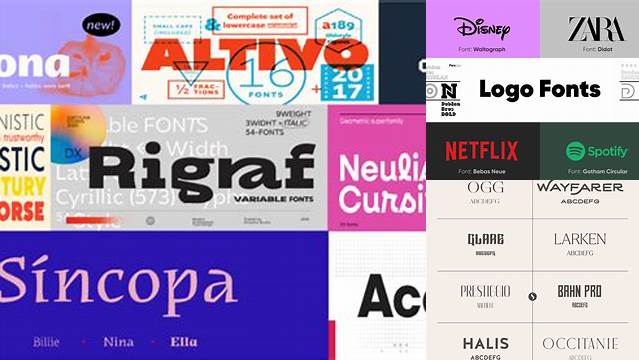
Top Logo Fonts 2025: Create A Lasting Brand!
Choosing the right font for your logo is crucial, guys. It's like picking the perfect outfit for a first date β you want to make a great impression! In 2025, the landscape of logo design is evolving, and staying ahead of the curve means understanding the latest font trends and how they can represent your brand effectively. So, letβs dive into the best fonts for logo design in 2025 and how to use them to create a lasting brand identity.
1. Serif Fonts for Logos: Timeless Elegance
Serif fonts, with their classic serifs (those little strokes at the ends of letters), have a reputation for conveying sophistication and reliability. When you think of established brands with a sense of history, you often picture serif fonts. For your logo, a well-chosen serif can project a sense of timeless elegance. Think about brands like Times New Roman, which have stood the test of time. In 2025, serif fonts aren't just about tradition; they're being reimagined with modern twists. This means you can find serifs that feel both classic and contemporary, providing the best of both worlds. When using serif fonts, pay attention to the spacing between letters (kerning) and lines (leading) to ensure readability. A cluttered or poorly spaced serif can lose its elegance and look outdated. The weight of the font also matters β a bolder serif can feel authoritative, while a lighter weight can appear more delicate. Experiment with different sizes and styles to see what works best for your logo. Ultimately, choosing a serif font is about more than just aesthetics; it's about telling a story of heritage and quality. Your brand can benefit greatly from the inherent trustworthiness associated with these fonts, making them a fantastic choice for conveying stability and sophistication in 2025. Consider the specific message you want to send, and let your chosen serif font be the silent yet powerful ambassador of your brand's values.
2. Sans-Serif Fonts: Modern & Minimalist
Sans-serif fonts, characterized by their clean lines and lack of serifs, have become synonymous with modern and minimalist design. They're the go-to choice for brands that want to project a sense of innovation, simplicity, and clarity. Think about tech companies or contemporary fashion brands β you'll often see them using sans-serif fonts in their logos. The versatility of sans-serif fonts makes them incredibly popular in 2025. They work well in both digital and print formats, making them a practical choice for logos that need to look good across various platforms. When you choose a sans-serif font, you're opting for readability and a sleek, uncluttered aesthetic. But don't think that minimalist means boring! There's a vast range of sans-serif styles, from geometric to humanist, each with its own unique personality. Geometric sans-serifs, like Futura, have a structured and almost architectural feel, while humanist sans-serifs, like Helvetica, are known for their warmth and approachability. The key is to find a sans-serif font that aligns with your brand's personality and values. Consider the overall tone you want to convey β is it professional, friendly, or edgy? The right sans-serif font can communicate all of these qualities. Make sure to consider how the font will look at different sizes. Some sans-serif fonts can become difficult to read when they are very small, so test your logo in various contexts to ensure it remains legible. By carefully selecting a sans-serif font, you can create a logo that is both modern and timeless, projecting a strong and confident image for your brand in 2025.
3. Script Fonts: Personality & Flair
Script fonts, which mimic the fluidity of handwriting, are perfect for brands looking to add a touch of personality and flair to their logo. Think of luxury brands, artisanal products, or anything that wants to convey a sense of craftsmanship and attention to detail. In 2025, script fonts continue to be a popular choice for logos that need a personal touch, but it's crucial to use them strategically. Script fonts can range from elegant and formal to playful and casual, so the key is to choose one that aligns with your brand's overall aesthetic. A flowing, calligraphic script might be perfect for a high-end fashion brand, while a more whimsical script could work well for a children's product. However, the legibility of script fonts is a crucial factor. Overly ornate or complex scripts can be difficult to read, especially at smaller sizes. You want your logo to be instantly recognizable, so make sure the script you choose is clear and easy to decipher. Consider using script fonts sparingly, perhaps in combination with a simpler sans-serif or serif font. This can create a balanced and visually appealing logo that is both stylish and readable. The color and background can also play a significant role in the effectiveness of a script font. A light script on a dark background, for instance, can create a dramatic and sophisticated effect. When you use a script font well, you're not just choosing a typeface; you're adding a voice to your brand. Itβs about telling a story, conveying emotion, and creating a connection with your audience. This makes script fonts a powerful tool for logo design in 2025, provided they are used with care and consideration.
4. Display Fonts: Unique & Eye-Catching
Display fonts are the rebels of the font world β bold, unique, and designed to grab attention. They're perfect for logos that need to stand out from the crowd and make a strong statement. Think of brands that want to be edgy, innovative, or simply memorable. In 2025, display fonts are more diverse than ever, offering a wide range of styles from geometric and futuristic to vintage and hand-drawn. This variety allows you to find a display font that truly reflects your brand's unique personality. The challenge with display fonts is using them effectively. Because they are so distinctive, they can easily overwhelm a logo if not handled with care. It's often best to use display fonts sparingly, perhaps as the main font for your brand name, and pair them with a simpler font for any supporting text. Legibility is also a key consideration. Some display fonts are so stylized that they can be difficult to read, especially at smaller sizes. Make sure your logo remains clear and recognizable, even when it's scaled down. Consider the context in which your logo will be used. A bold, geometric display font might be perfect for a tech startup, while a vintage-inspired display font could be ideal for a craft brewery. The goal is to choose a display font that not only looks good but also communicates the right message about your brand. When you get it right, a display font can be a game-changer, making your logo instantly memorable and setting your brand apart from the competition in 2025. By carefully selecting and incorporating a display font, you can create a logo that is both visually striking and deeply resonant with your target audience.